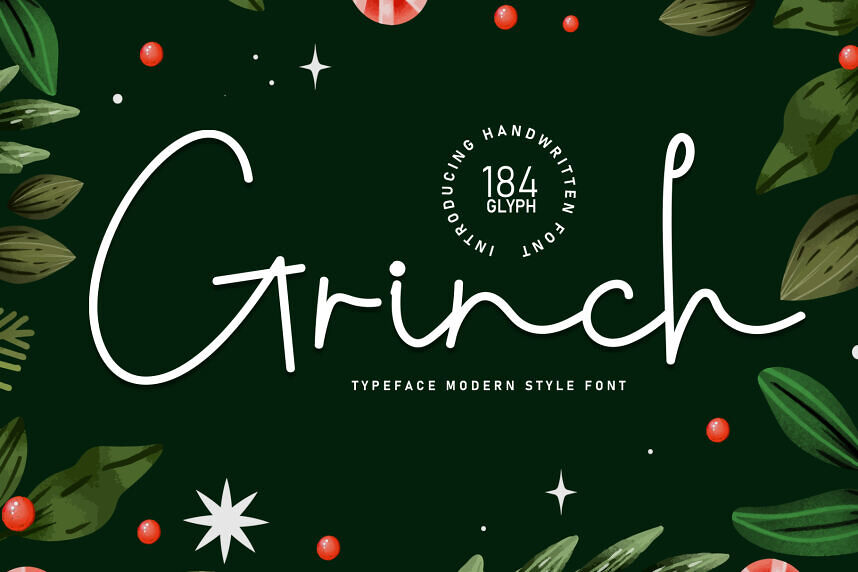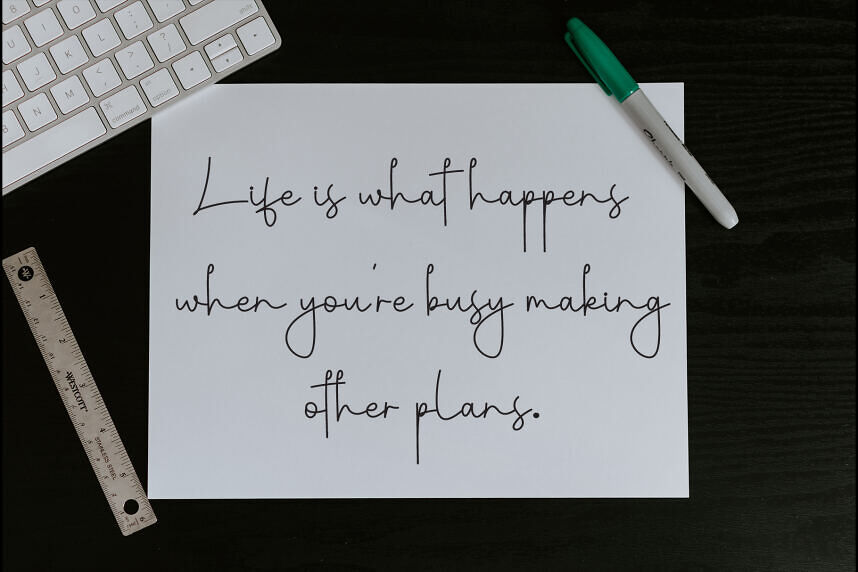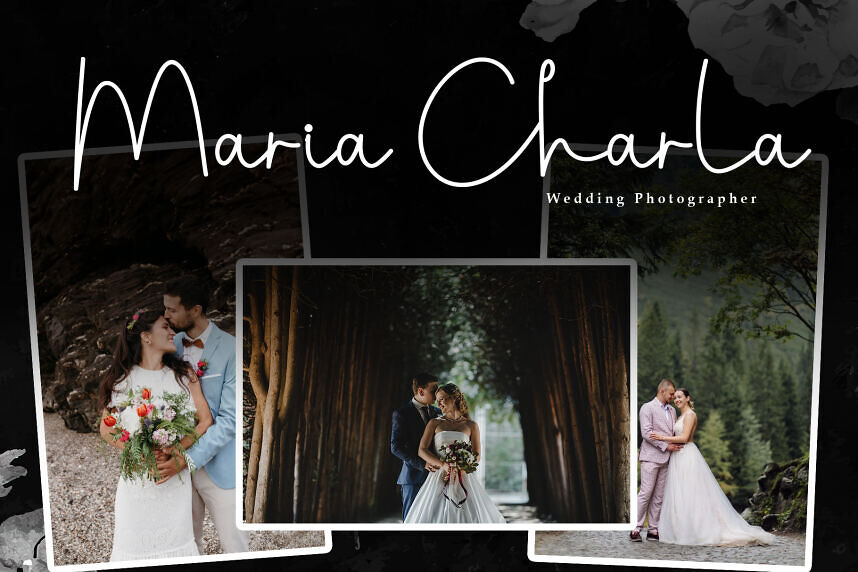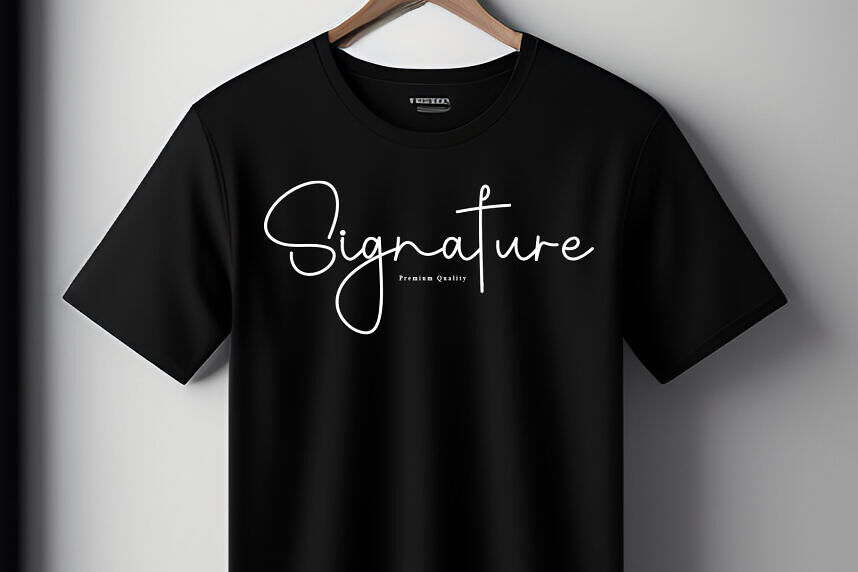
Grinch Handwritten Font is a playful and expressive script typeface with smooth, flowing strokes and a natural handwritten feel. Its stylish curves and balanced letterforms create a look that is both elegant and approachable.
Ideal for invitations, branding, social media, and packaging, it adds personality and warmth to any design while remaining clear and versatile across different creative applications.